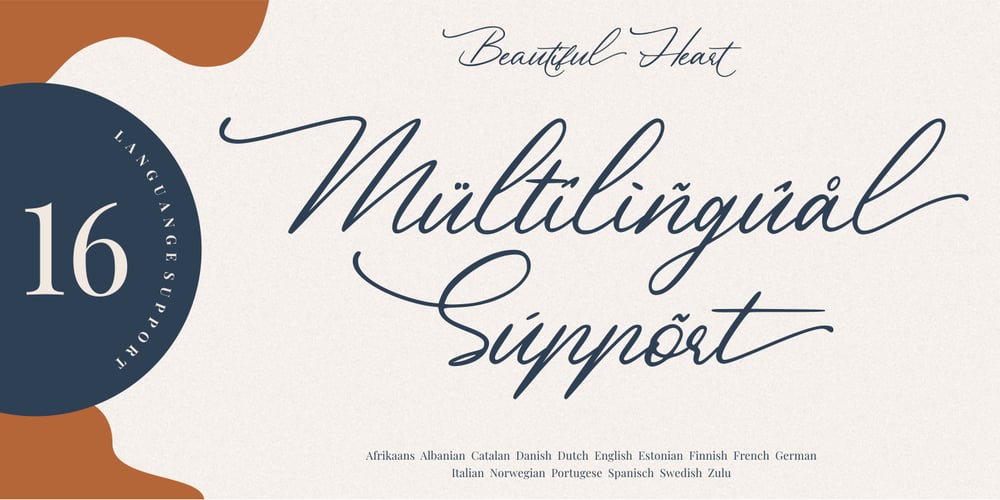
Beautiful Heart
Beautiful Heart font
Beautiful Heart Font Family was designed by Risman Ginarwan and published by Garisman Studio. Beautiful Heart contains 1 styles and family package options. Beautiful Heart is a calligraphy script font and is perfect for logos, invitations, stationery, wedding designs, social media posts, advertisements, product packaging, product designs, labels, photography, watermark, special events or anything. Beautiful Heart comes with full set of uppercase and lowercase letters, multilingual symbols, numerals, punctuation. – Ligature – Stylistic Alternates, Stylistic Sets, and Swashes – Natural brush touch – PUA Encoded open – Support for MAC or PC – Simple installation for Adobe Illustrator, Corel Draw, Photoshop, or Procreate (New Updated)